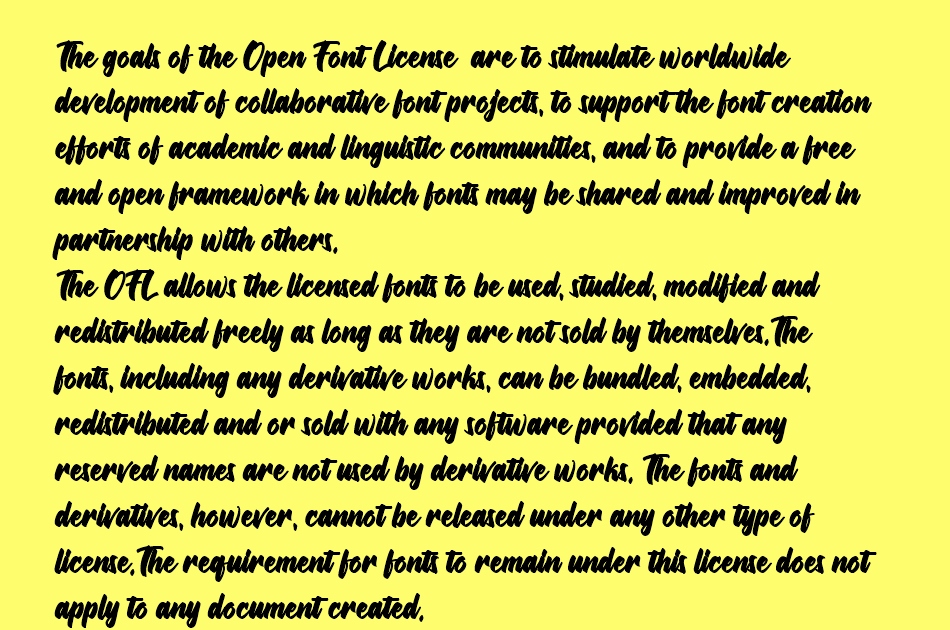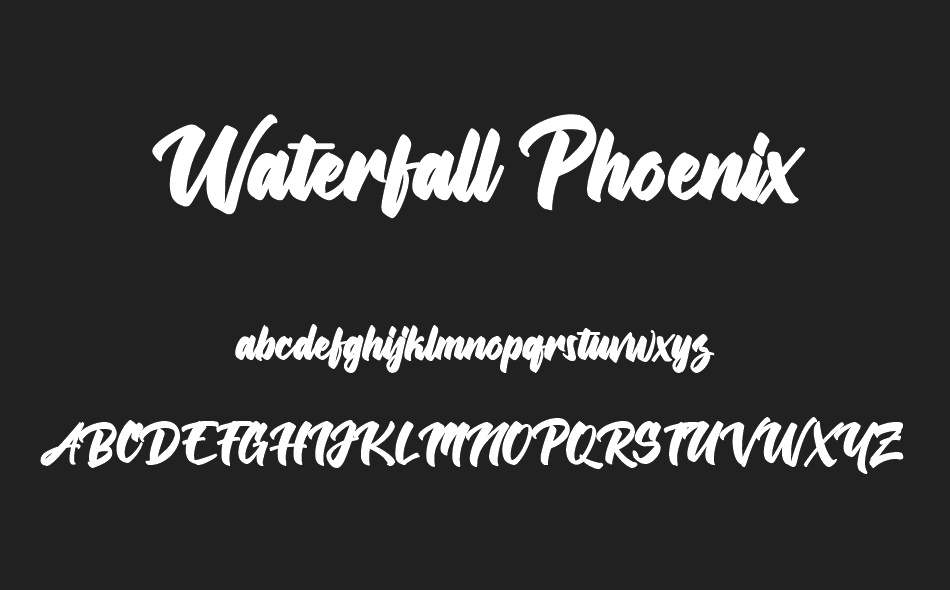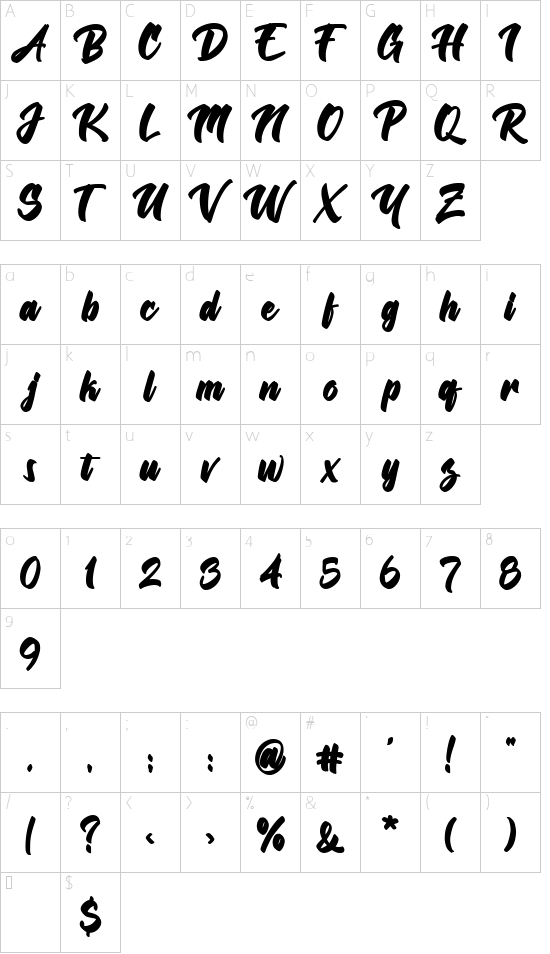
Waterfall Phoenix Font
Waterfall Phoenix Font - Moreover, you can embed it. Web category script , brush. Waterfall phoenix à € by octotype | thomas boucherie. .this font is free for personal use. Web waterfall phoenix font is a stunning brush typeface designed by octotype.
Waterfall phoenix à € by octotype | thomas boucherie. Web category script , brush. Web waterfall phoenix font is a stunning brush typeface designed by octotype. .this font is free for personal use. Moreover, you can embed it.
Web waterfall phoenix font is a stunning brush typeface designed by octotype. Waterfall phoenix à € by octotype | thomas boucherie. Moreover, you can embed it. .this font is free for personal use. Web category script , brush.
Waterfall Phoenix font details
Waterfall phoenix à € by octotype | thomas boucherie. Web waterfall phoenix font is a stunning brush typeface designed by octotype. Web category script , brush. Moreover, you can embed it. .this font is free for personal use.
Waterfall Phoenix free font
.this font is free for personal use. Moreover, you can embed it. Web category script , brush. Waterfall phoenix à € by octotype | thomas boucherie. Web waterfall phoenix font is a stunning brush typeface designed by octotype.
.this font is free for personal use. Web waterfall phoenix font is a stunning brush typeface designed by octotype. Web category script , brush. Moreover, you can embed it. Waterfall phoenix à € by octotype | thomas boucherie.
Waterfall Phoenix free font
Web waterfall phoenix font is a stunning brush typeface designed by octotype. Waterfall phoenix à € by octotype | thomas boucherie. .this font is free for personal use. Web category script , brush. Moreover, you can embed it.
Waterfall Phoenix font by Octotype Thomas Boucherie FontRiver
.this font is free for personal use. Web category script , brush. Web waterfall phoenix font is a stunning brush typeface designed by octotype. Waterfall phoenix à € by octotype | thomas boucherie. Moreover, you can embed it.
Waterfall Phoenix font
.this font is free for personal use. Waterfall phoenix à € by octotype | thomas boucherie. Web waterfall phoenix font is a stunning brush typeface designed by octotype. Moreover, you can embed it. Web category script , brush.
Waterfall Phoenix free font
Web waterfall phoenix font is a stunning brush typeface designed by octotype. Web category script , brush. .this font is free for personal use. Moreover, you can embed it. Waterfall phoenix à € by octotype | thomas boucherie.
.this font is free for personal use. Moreover, you can embed it. Waterfall phoenix à € by octotype | thomas boucherie. Web category script , brush. Web waterfall phoenix font is a stunning brush typeface designed by octotype.
Waterfall Phoenix free font
Waterfall phoenix à € by octotype | thomas boucherie. Web waterfall phoenix font is a stunning brush typeface designed by octotype. .this font is free for personal use. Moreover, you can embed it. Web category script , brush.
Web Waterfall Phoenix Font Is A Stunning Brush Typeface Designed By Octotype.
Web category script , brush. Waterfall phoenix à € by octotype | thomas boucherie. .this font is free for personal use. Moreover, you can embed it.